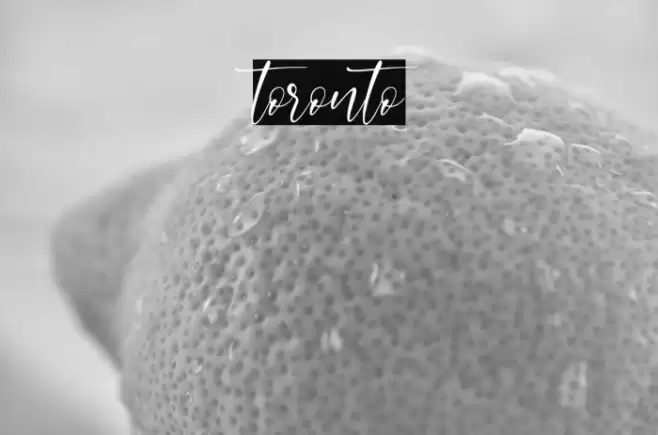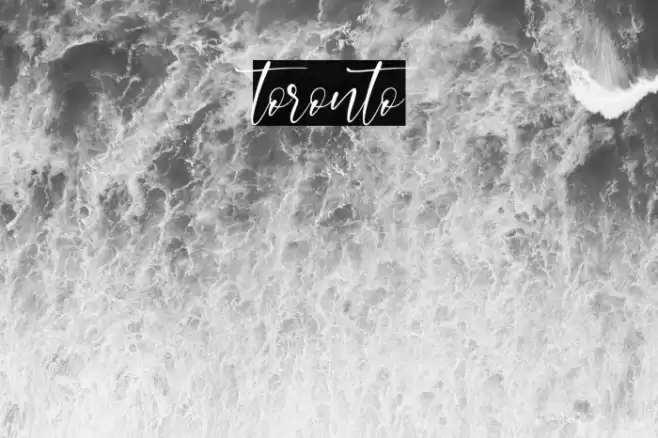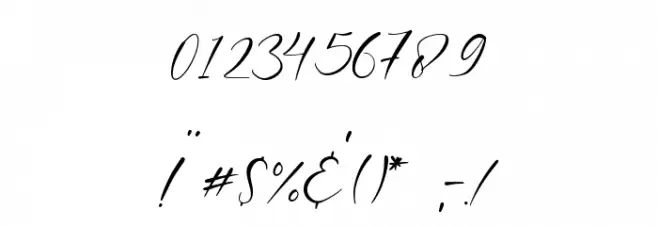
toronto Font
toronto Description
This font exudes elegance and fluidity, characterized by its script style with a handwritten touch. The uppercase letters are tall and slender, with sweeping curves and flourishes that add a sense of movement and grace. The lowercase letters maintain a consistent flow, featuring loops and connecting strokes that enhance the handwritten aesthetic. The numerals are stylish and align well with the overall design, maintaining the same fluidity and elegance. Special characters are thoughtfully designed, integrating seamlessly with the rest of the font. This font is perfect for projects that require a personal and artistic touch, such as invitations, greeting cards, and branding materials.
An elegant, fluid script font with a handwritten touch from Uncategorized fonts.
- Proposed Projects: Ideal for invitations, greeting cards, branding, and artistic projects.
- Overall Style: Elegant, Artistic
- Use Case: Headlines, Logos, Invitations